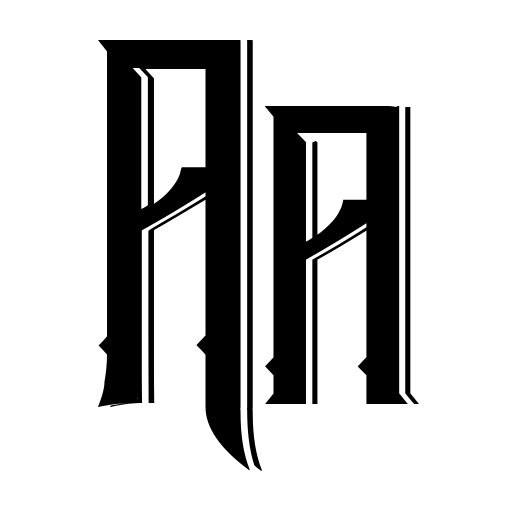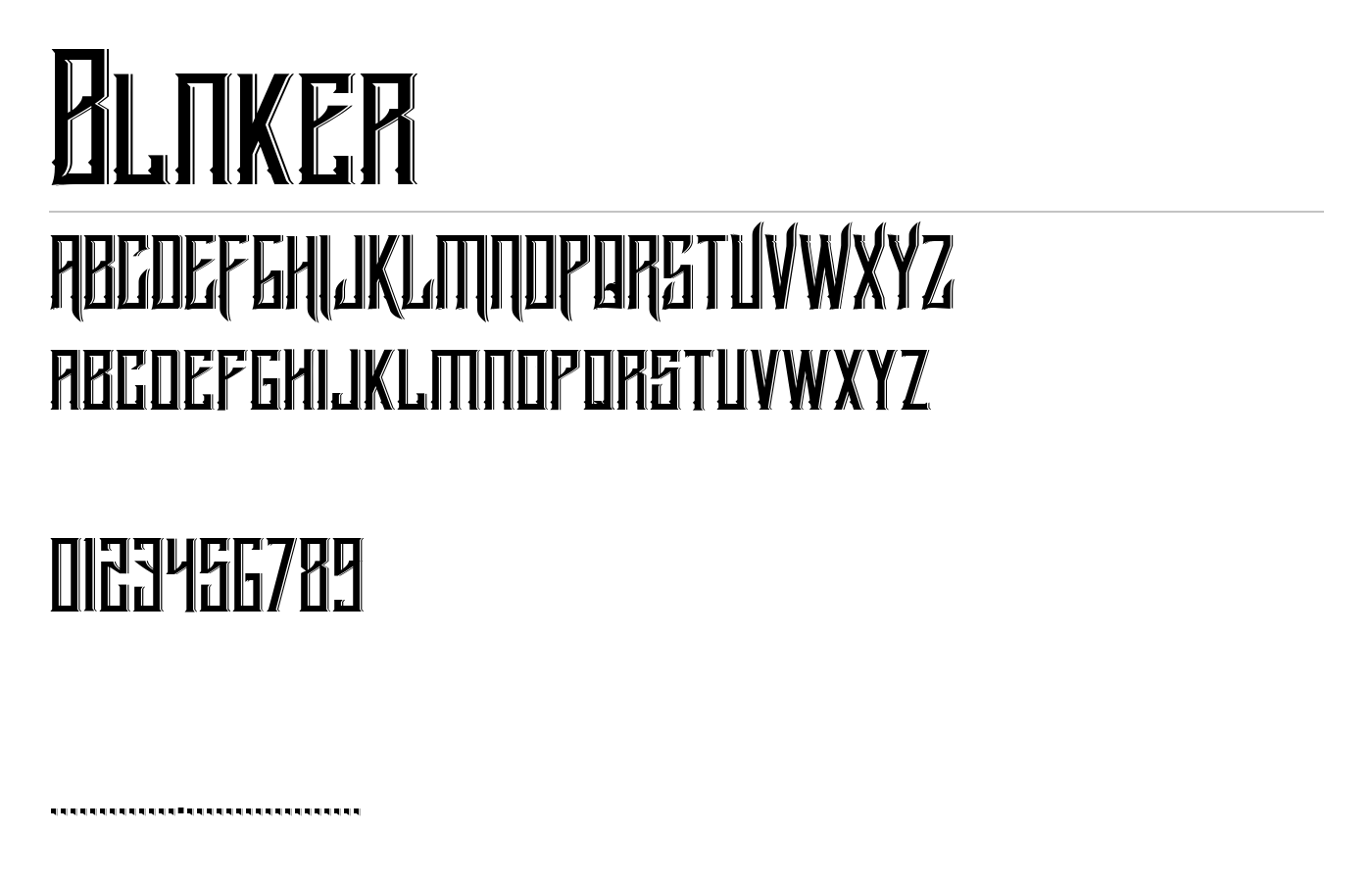
Blnker is a condensed serif font with a bold, striking presence characterized by high contrast between thick and thin strokes and sharp, angular details. Its tall, narrow letterforms and intricate serifs evoke a vintage, gothic-inspired feel, making it ideal for dramatic headlines, logos, and branding that seek a distinctive, edgy, and sophisticated look. This font works best when used sparingly for impactful display purposes rather than long text blocks.
Blnker Font
About Blnker Font